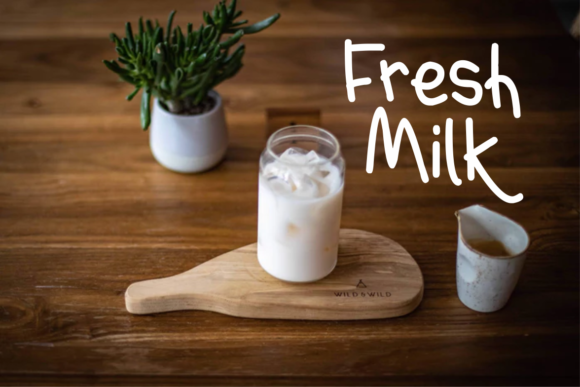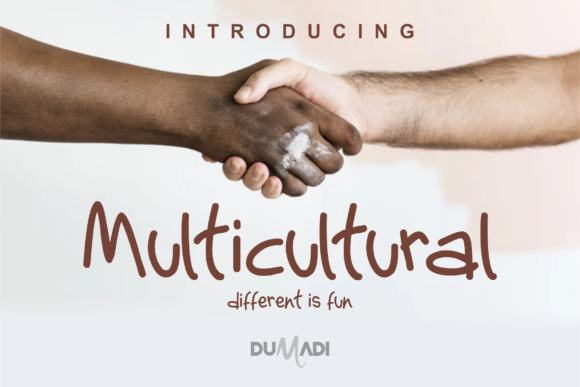
Multicultural Font
The Multicultural is a simple, yet fun typeface. It has a natural look, and the dancing baseline will give your design a friendly feel